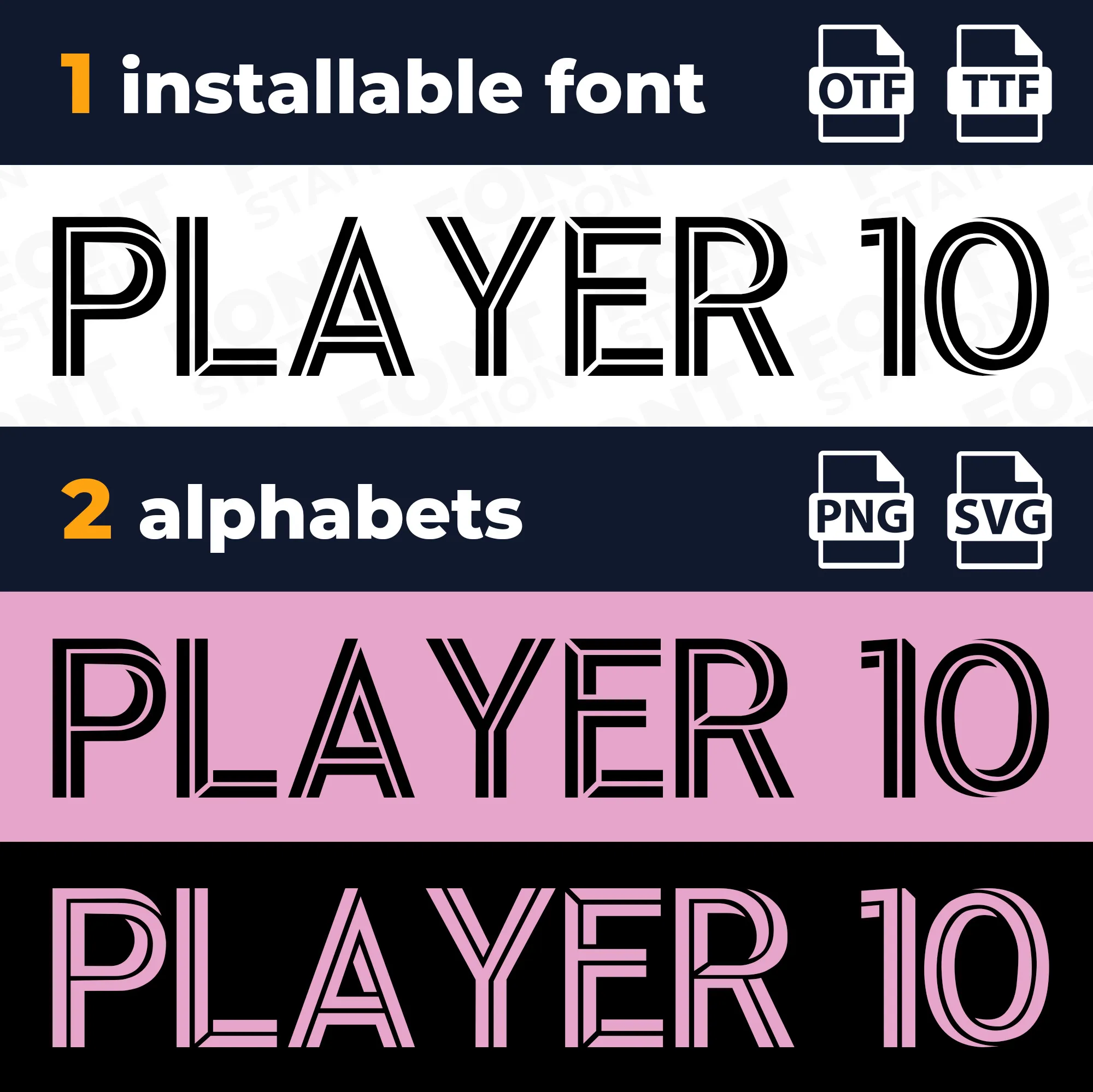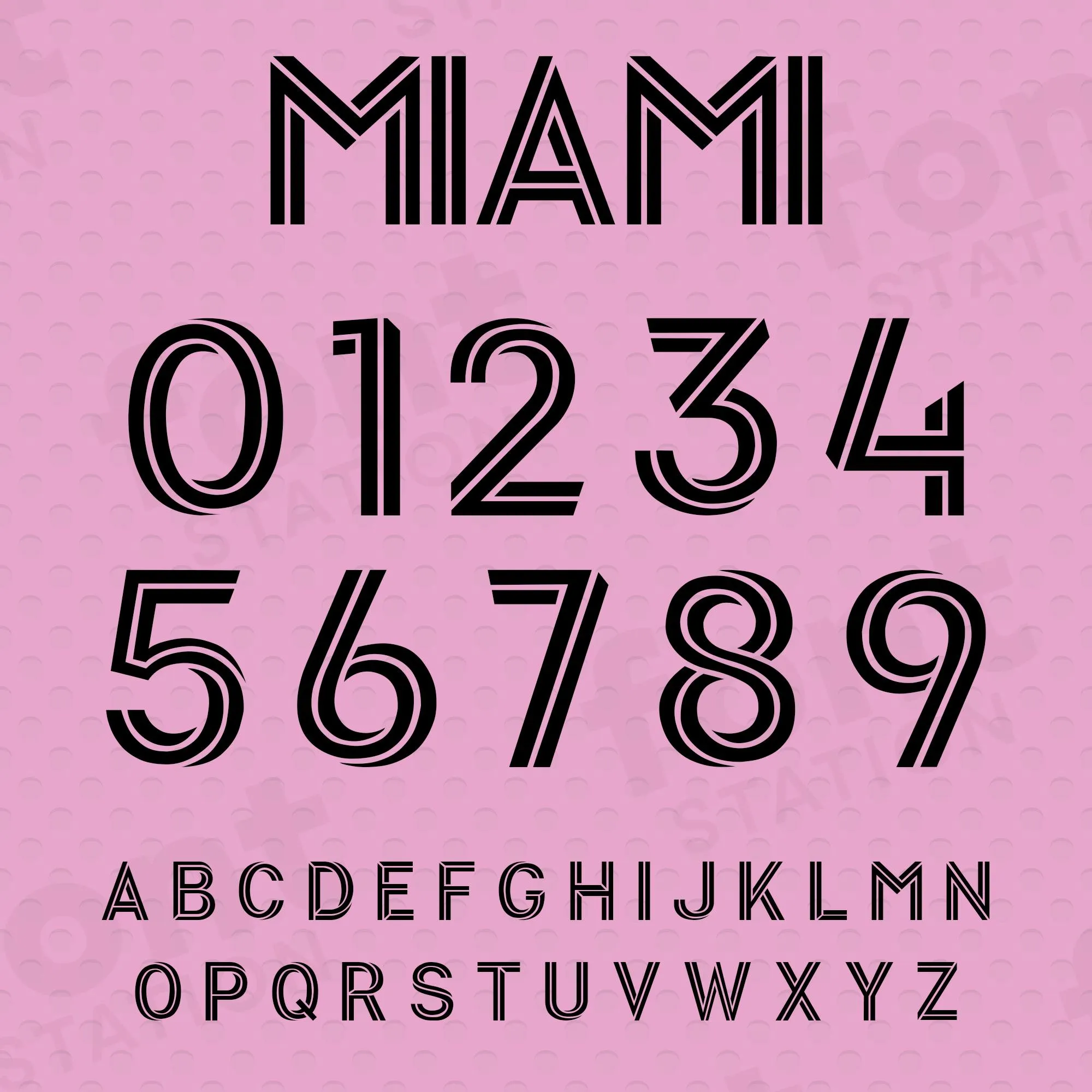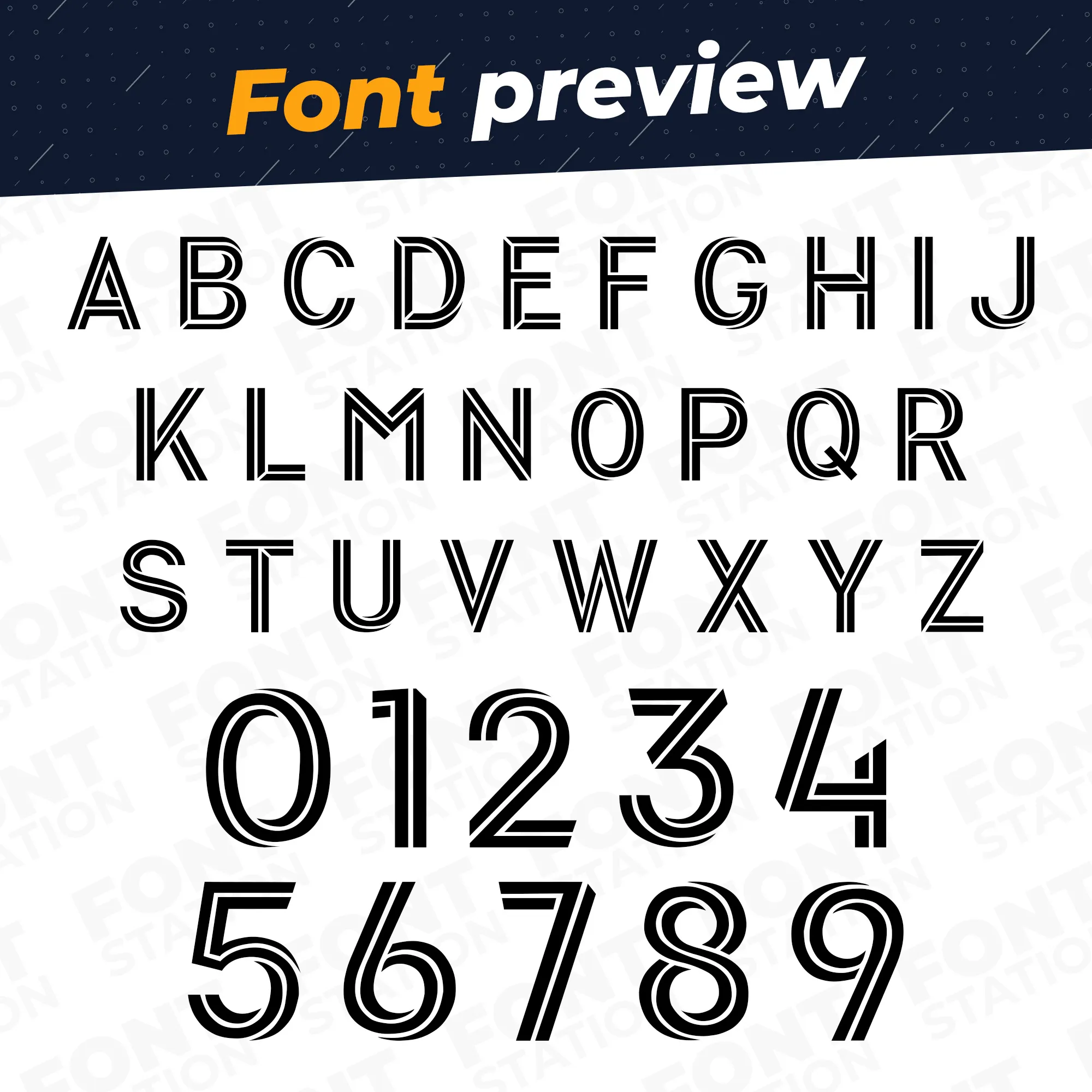
Our Inter Miami Football typeface, inspired from the official Miami Soccer FC Football Font used on Messi’s Jersey
Grab your computer, tablet or other device and start creating right now with our Miami Football font letters! Our Miami FC typography is inspired from Messi’s Jersey font, making it ideal for various digital creations (logo, word…), sublimation, cake toppers, stickers, event decorations, and more.
Image showing all characters available in the Inter Miami Soccer font created by FontMaze.
Inter Miami Soccer Font – Messi Jersey Font